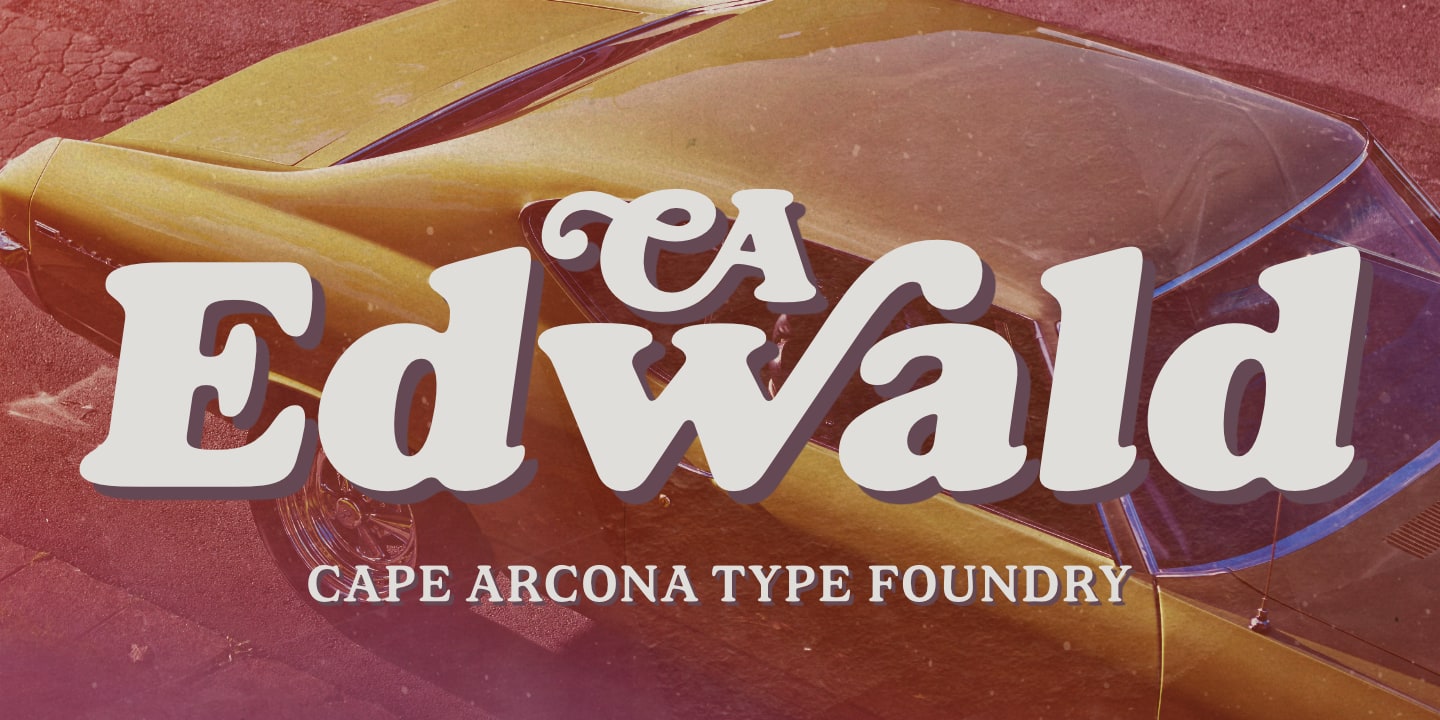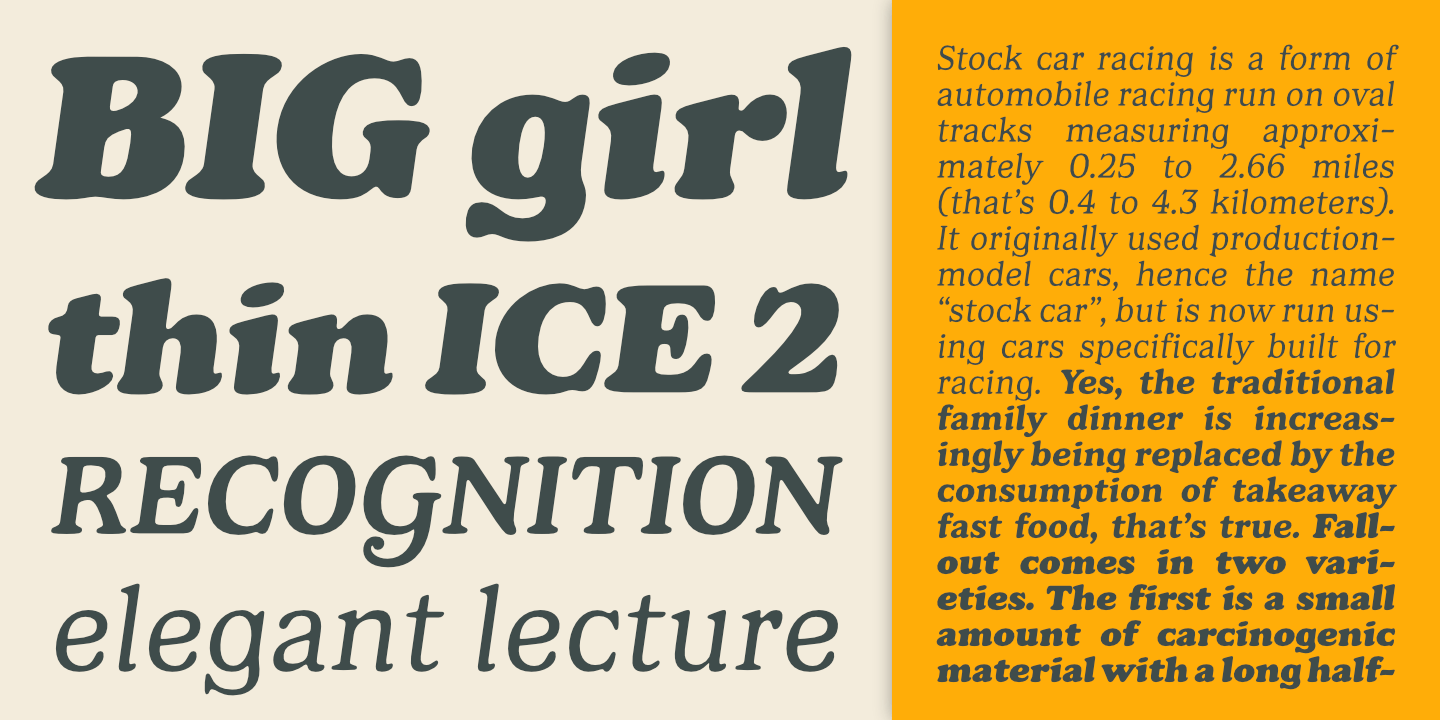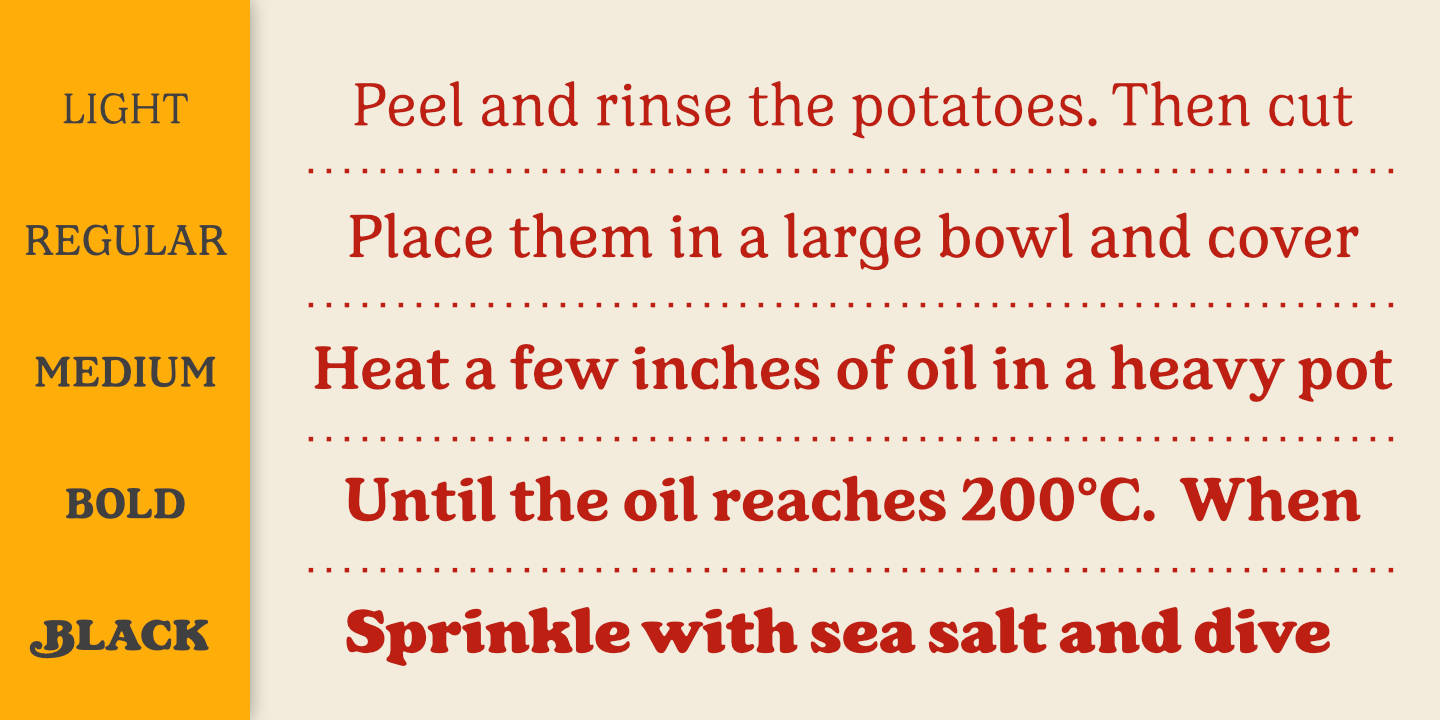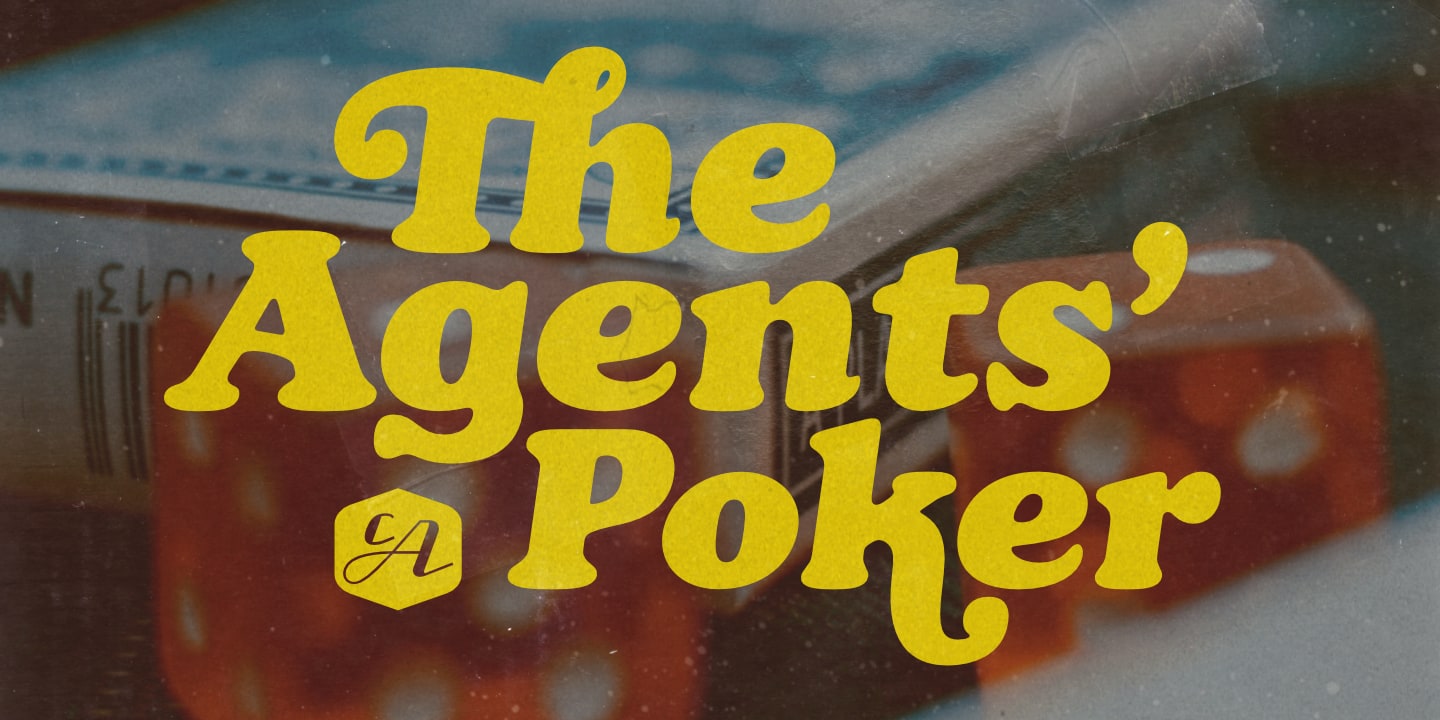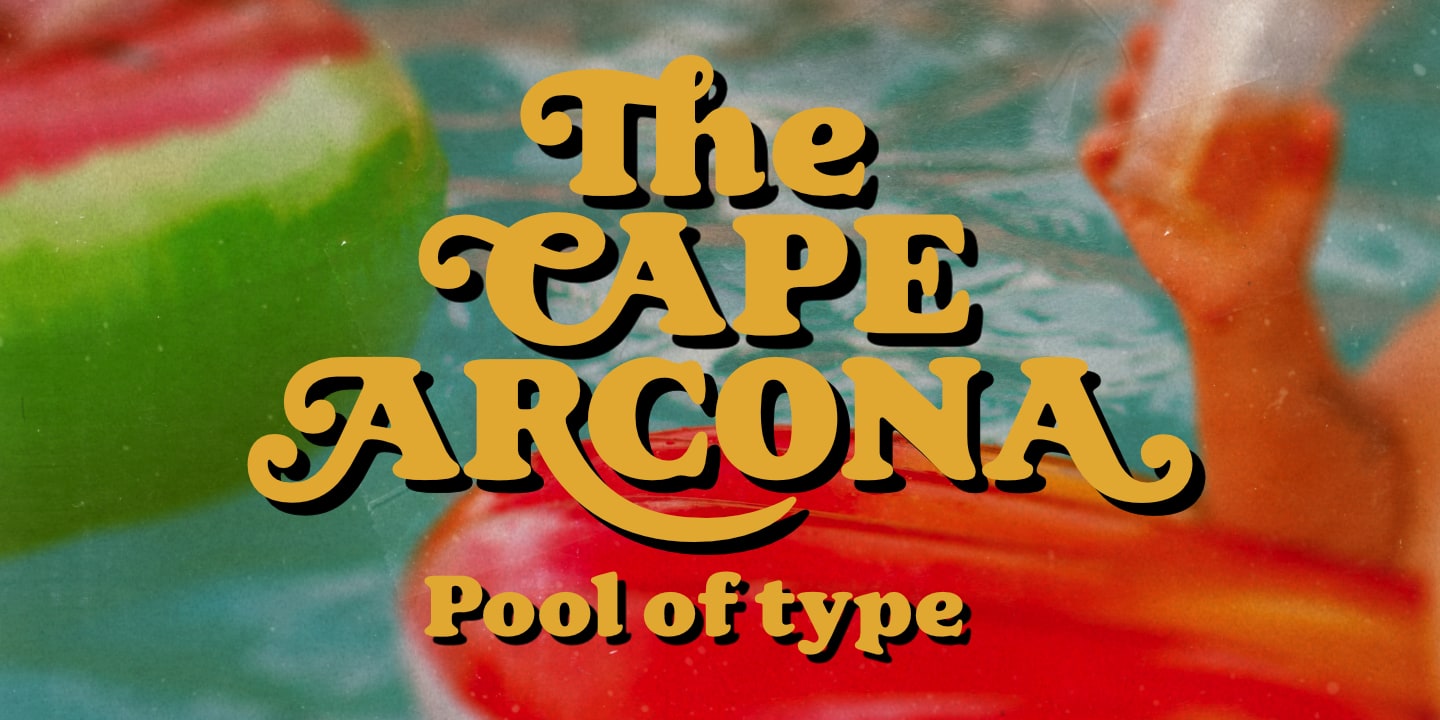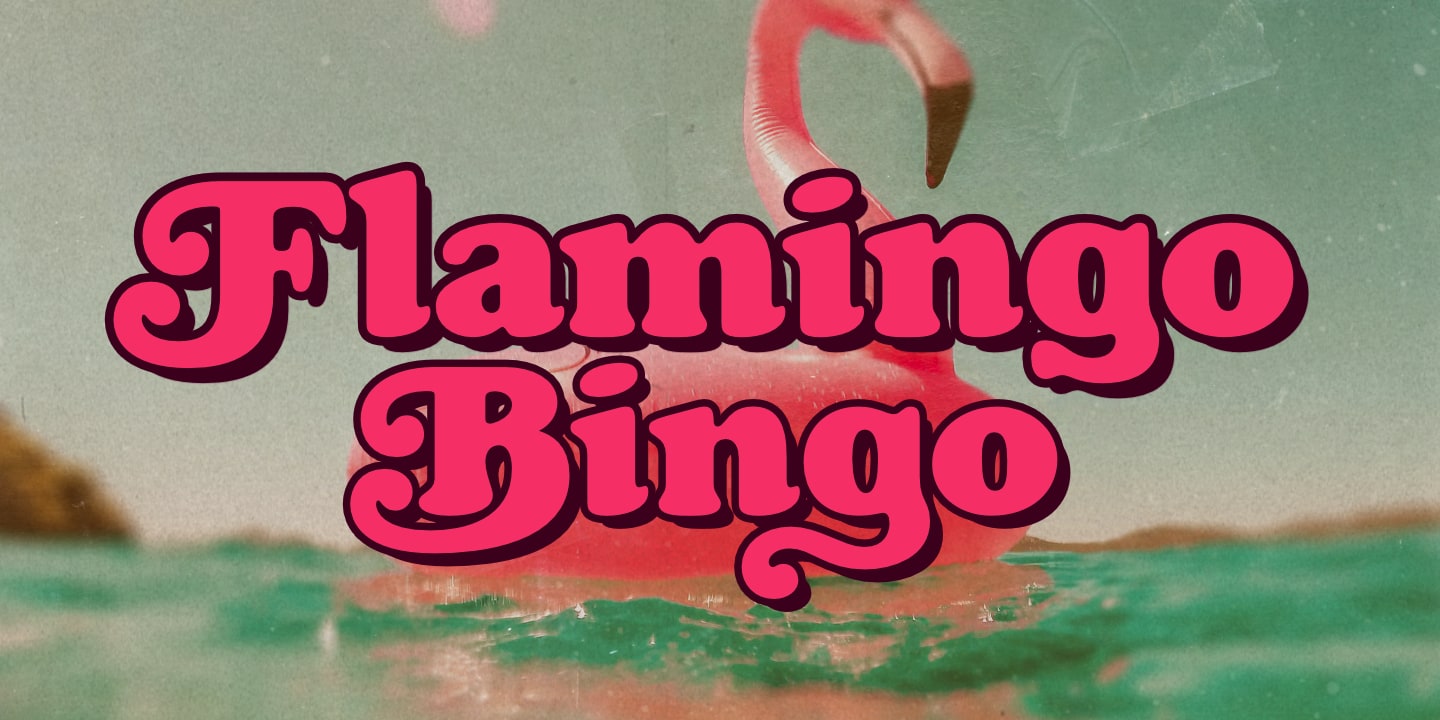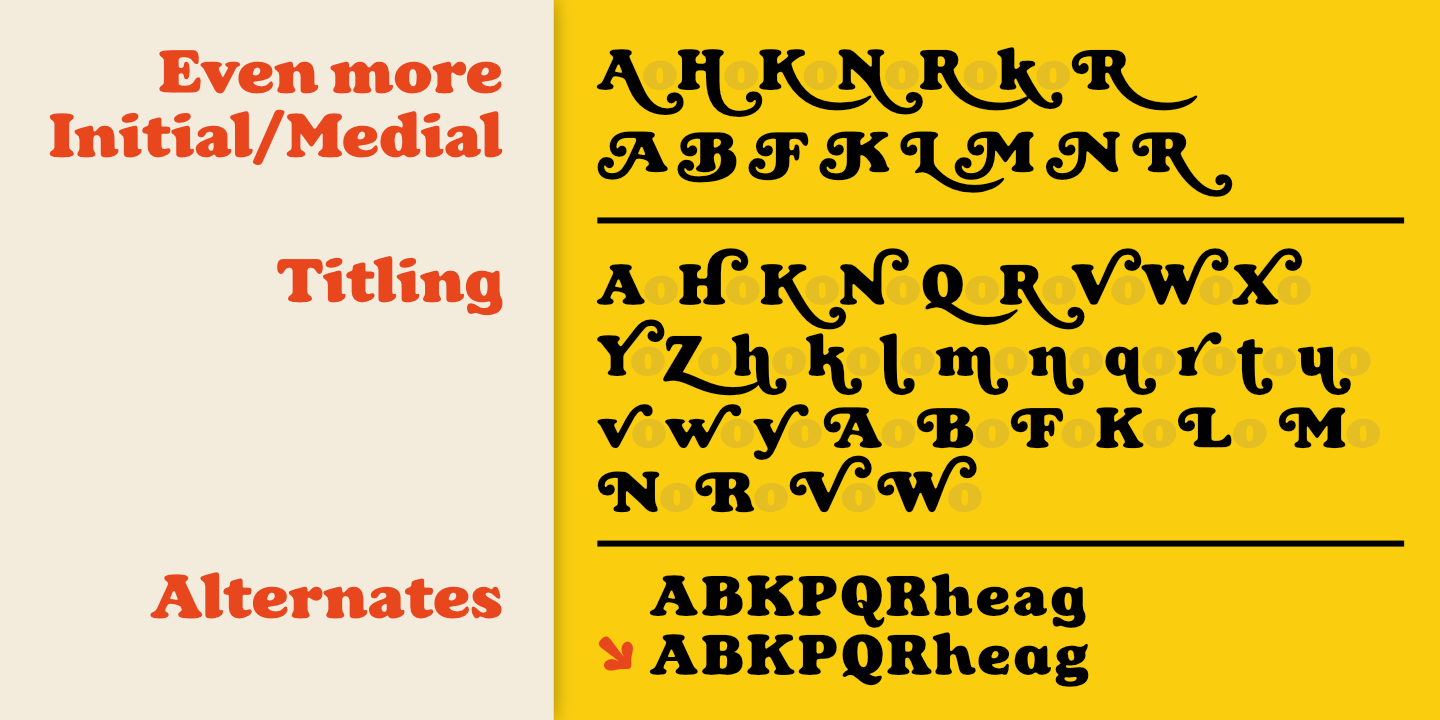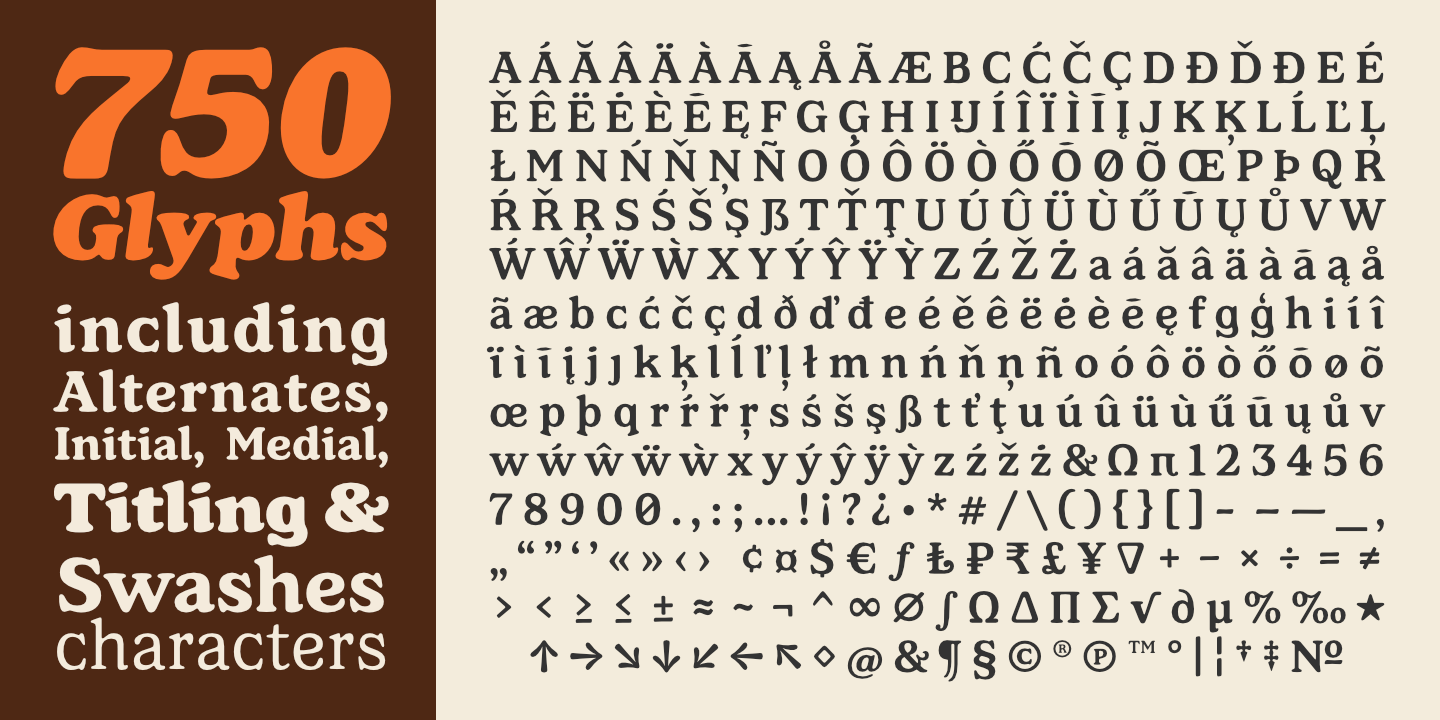
CA Edwald, the superbly crafted alphabet design now available in 5 weights, combining the familiar, the unusual, the practical and the aesthetic.
Plan ahead and make use of the assorted logo letters that add distinction to your headline.
CA Edwald is a welcome addition to our ever-growing collection of alphabet designs. It is prepared to meet your graphic requirements.
Now there is one trusty Musketeer for today’s advertising.
The illegitimate child of Oswald Bruce Coopers “Cooper Black” and Ed Benguiats “Benguiat“. A mix of two classics: CA Edwald.
Unquestionably, the broadside is the heavy artillery of the direct advertising campaign—and CA Edwald is the ammunition of greatest carrying and hitting power for these big guns of the selling drive.
CA Edwald typeface was created for actual jobs. Not a fanciful conception of “artistic temperament”. Born to do plain everyday work and do it well. A heavy, solid typeface, with a crisp, decisive look, as if it were straight from the workplace where it was designed.
A dominant type face. A bold Roman that is a genuine design. It distributes the message with a convincing force of powerful expression.